Questions for Font Creators Part 2: Favorite Kanji Glyph 3
The question “What is your favorite kanji glyph?” was asked to staff at the Type Project.
In the previous two articles, many answers with multiple glyphs, such as radicals and structure, were introduced together. In this article, answers with one glyph mentioned are introduced.
- “脩”:
Although this may not be different from what I like, this is the name of the former teacher who supported me when I chose this profession.
- “矢”:
This is the most familiar glyph to me.
- CID+7710:
In Sha-Ken’s dial plate for a period of time, the default for “靱” was this, but it is rarely seen today.
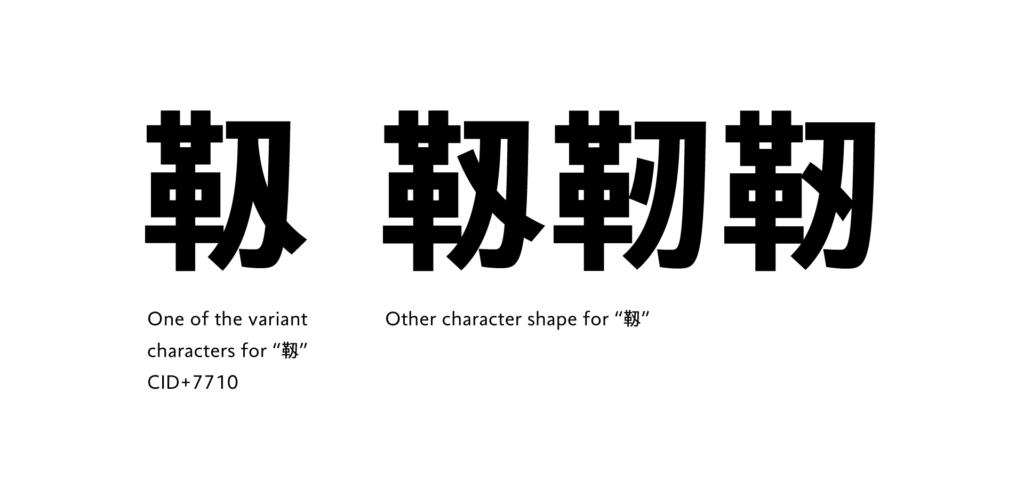
As mentioned, there are several answers that show special feelings, such as a glyph used for the name of someone special, a glyph that used widely in the past but is no longer seen, etc.